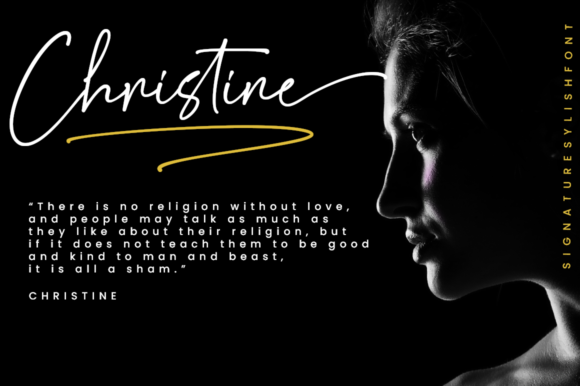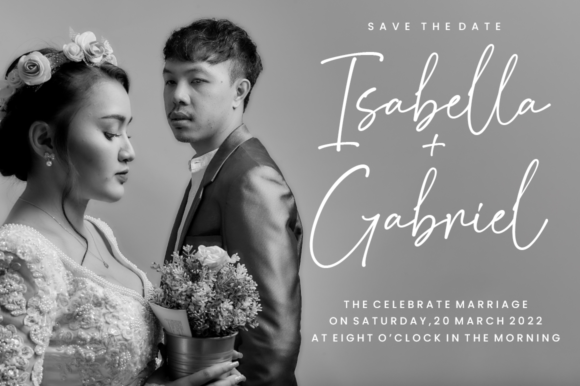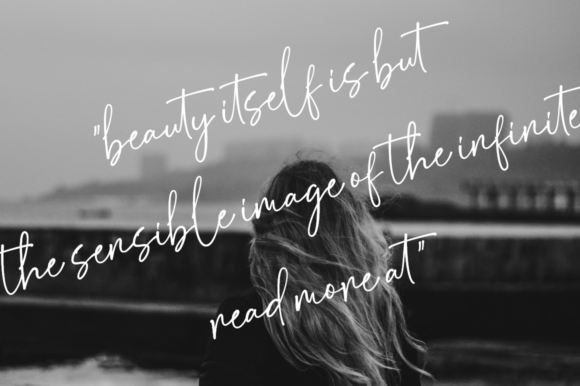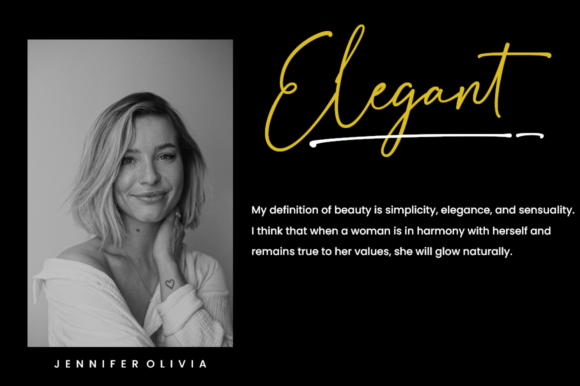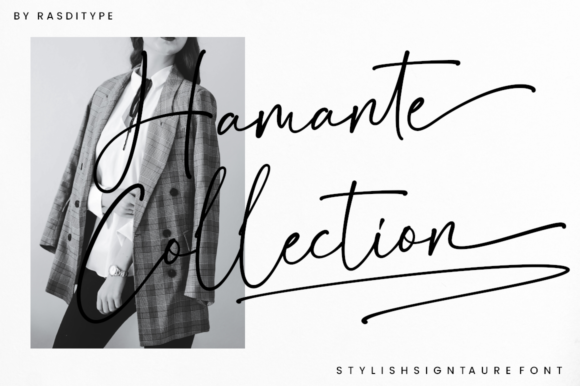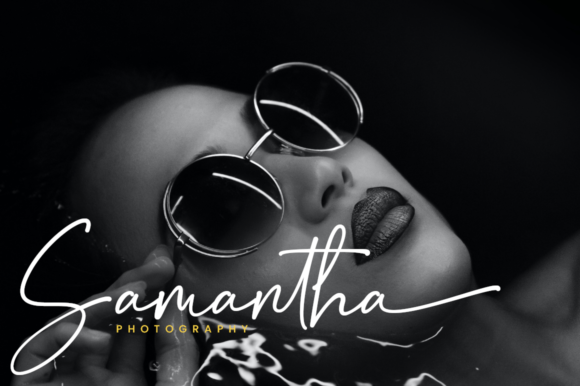
As a designer, there’s nothing quite like the thrill of bringing a new project to life. Whether it’s a wedding invitation, a social media post, or a logo for a new business, the right font can make all the difference. And that’s exactly where the Angelia Devitson Font comes in – a beautiful and refined script font that’s sure to elevate any design.
With its classy, elegant, and modern look, the Angelia Devitson Font is the perfect addition to any designer’s toolkit. From logos and branding to invitations and stationery, this versatile font is perfect for a wide range of creative projects. And with its PUA encoded feature, you’ll have access to all of the glyphs and swashes you need to create truly stunning designs.
Whether you’re a seasoned pro or just starting out, the Angelia Devitson Font is a valuable addition to any designer’s arsenal. Its flexibility, elegance, and ease of use make it a must-have for anyone looking to take their designs to the next level.
Angelia Devitson Font Key Features
- Font Family: Angelia Devitson, with multiple weights and styles available
- Unique Characteristics: Angelia Devitson features a unique blend of vintage and modern design elements, with intricate details and ornate flourishes
Angelia Devitson Font Review
As a designer, I was excited to try out the Angelia Devitson Font and see how it could elevate my designs. Here’s my honest review:
- The font’s elegant and refined feel makes it perfect for high-end branding and luxury projects.
- The script-like qualities add a touch of sophistication and make it ideal for invitations, weddings, and other special events.
- The font’s versatility allows it to be used in a variety of contexts, from titles and headings to body text.
- The font may be too ornate for some designs, making it difficult to read in certain contexts.
- The script-like qualities may not be suitable for projects that require a more modern or minimalist aesthetic.
- The font may not be as legible in smaller font sizes, which could affect readability.
The Angelia Devitson Font is a beautiful and elegant font that would be perfect for high-end branding, luxury projects, and special events. However, it may not be the best choice for more modern or minimalist designs. With its refined feel and script-like qualities, it’s a great option for designers looking to add a touch of sophistication to their projects.
Getting the Most Out of Angelia Devitson Font
For the best results, use the Angelia Devitson font in conjunction with a clean and minimalist design aesthetic.
Experiment with different font sizes and colors to create visual interest and balance.
The Angelia Devitson font is ideal for:
- Editorial and design projects